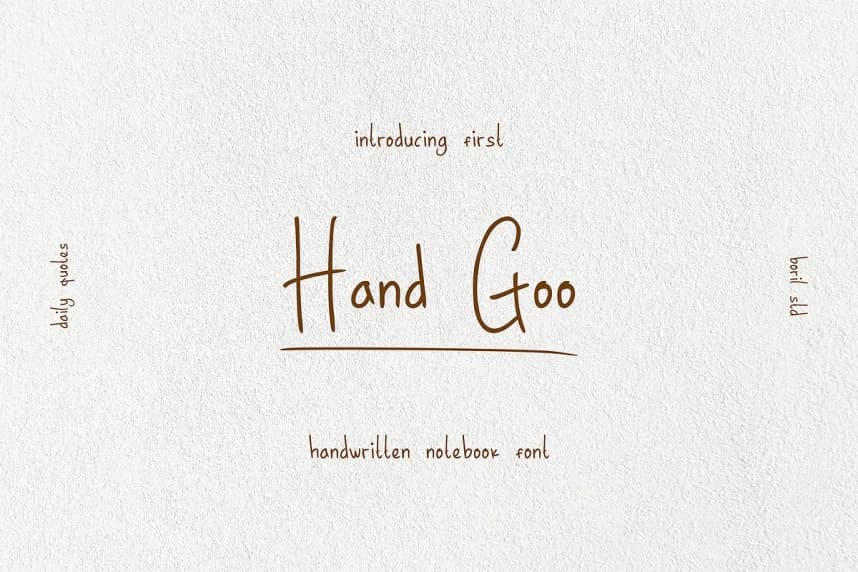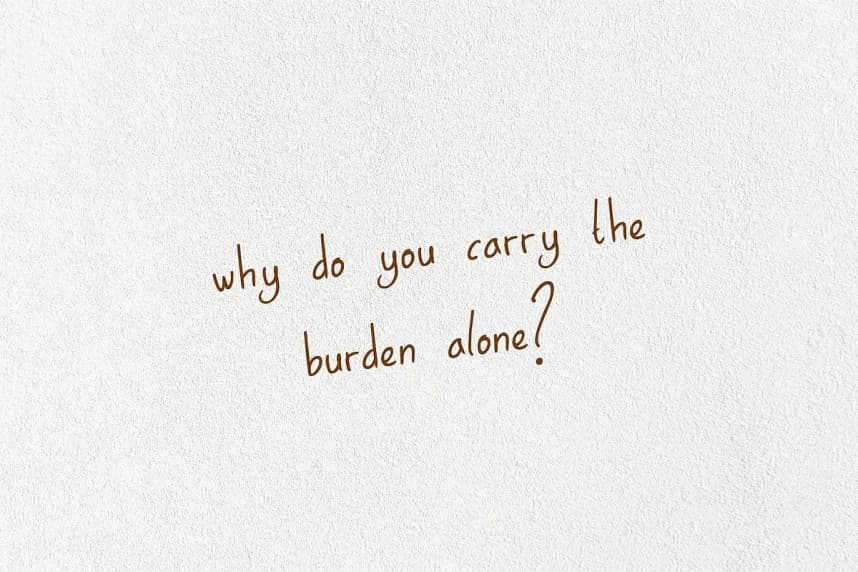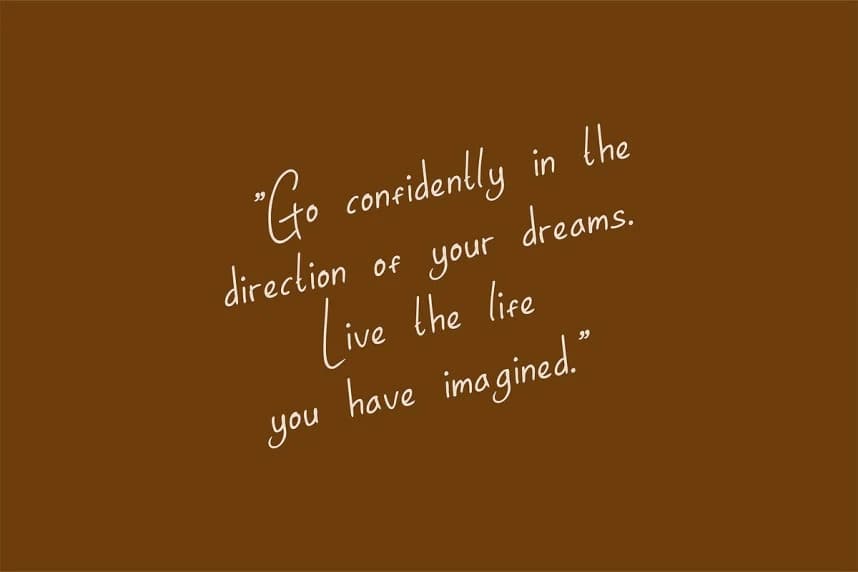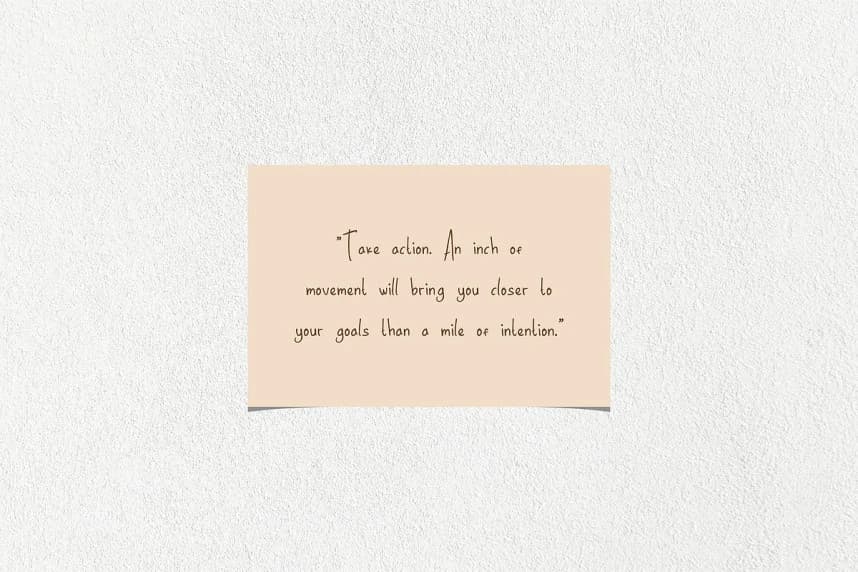
Hand Goo – Handwritten Note Font
Hand Goo - Handwritten Note Font is a handwritten monoline script font with a casual and minimalist aesthetic. Its tall, slender letterforms and slightly imperfect structure create a natural, organic appearance that feels personal and authentic.